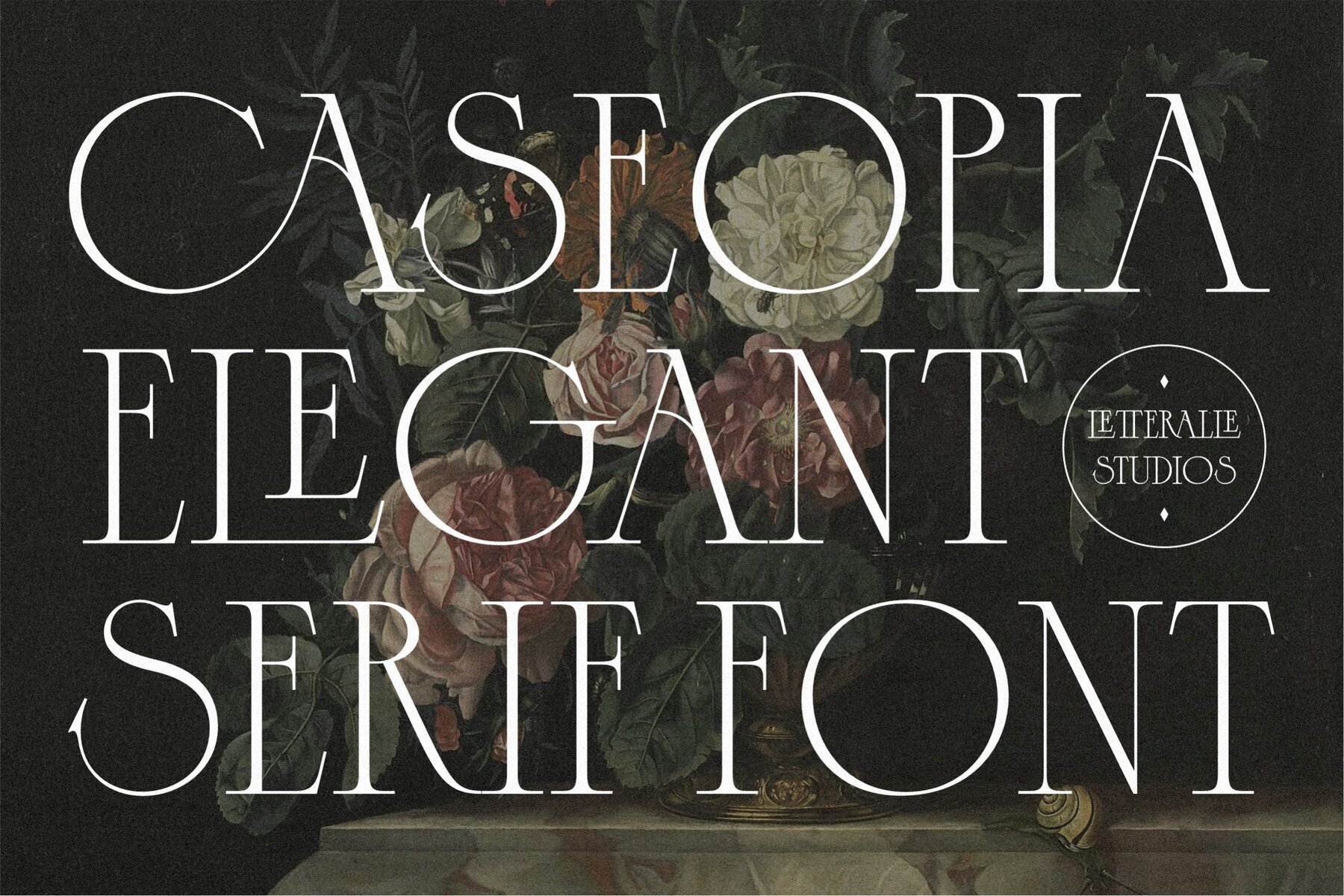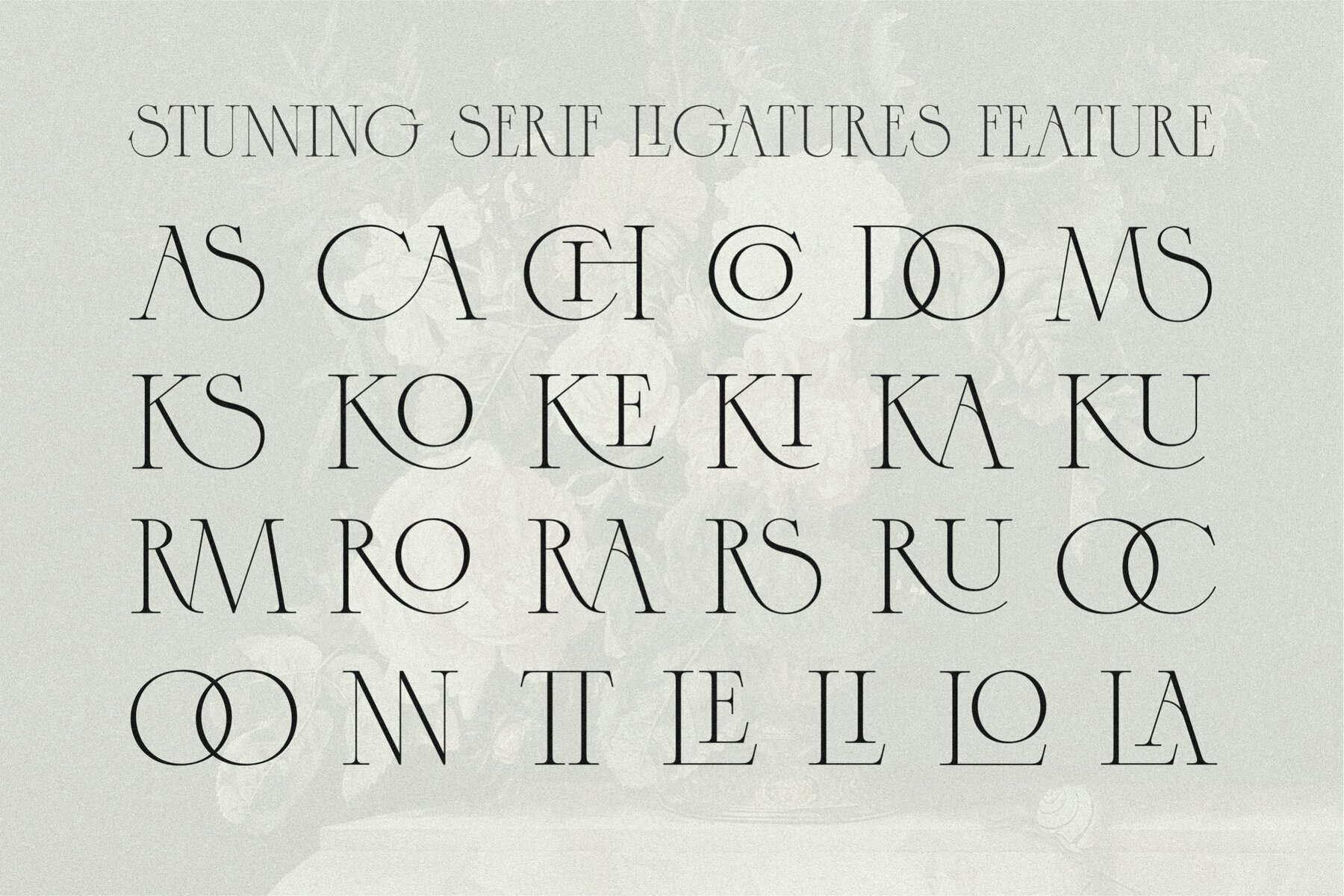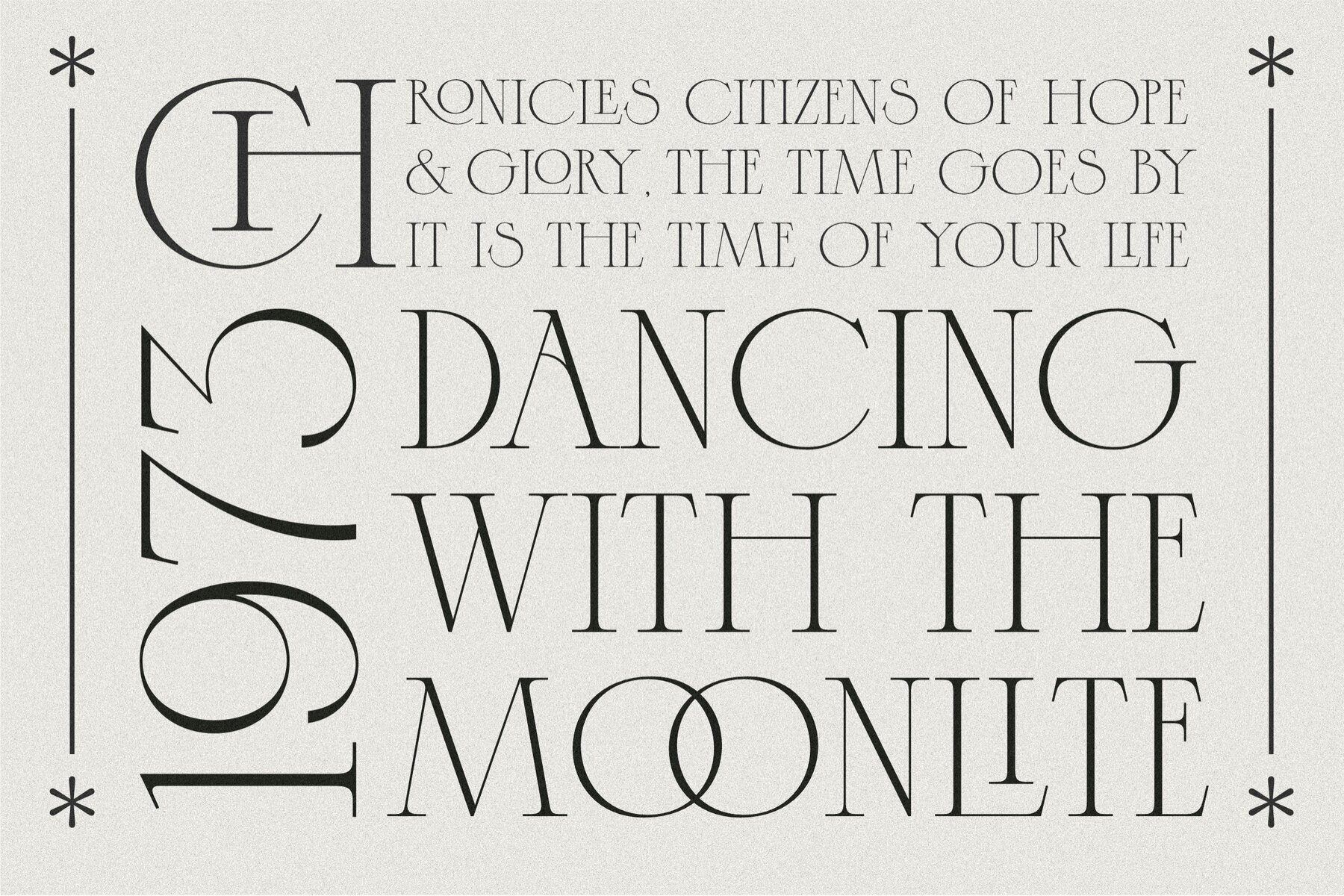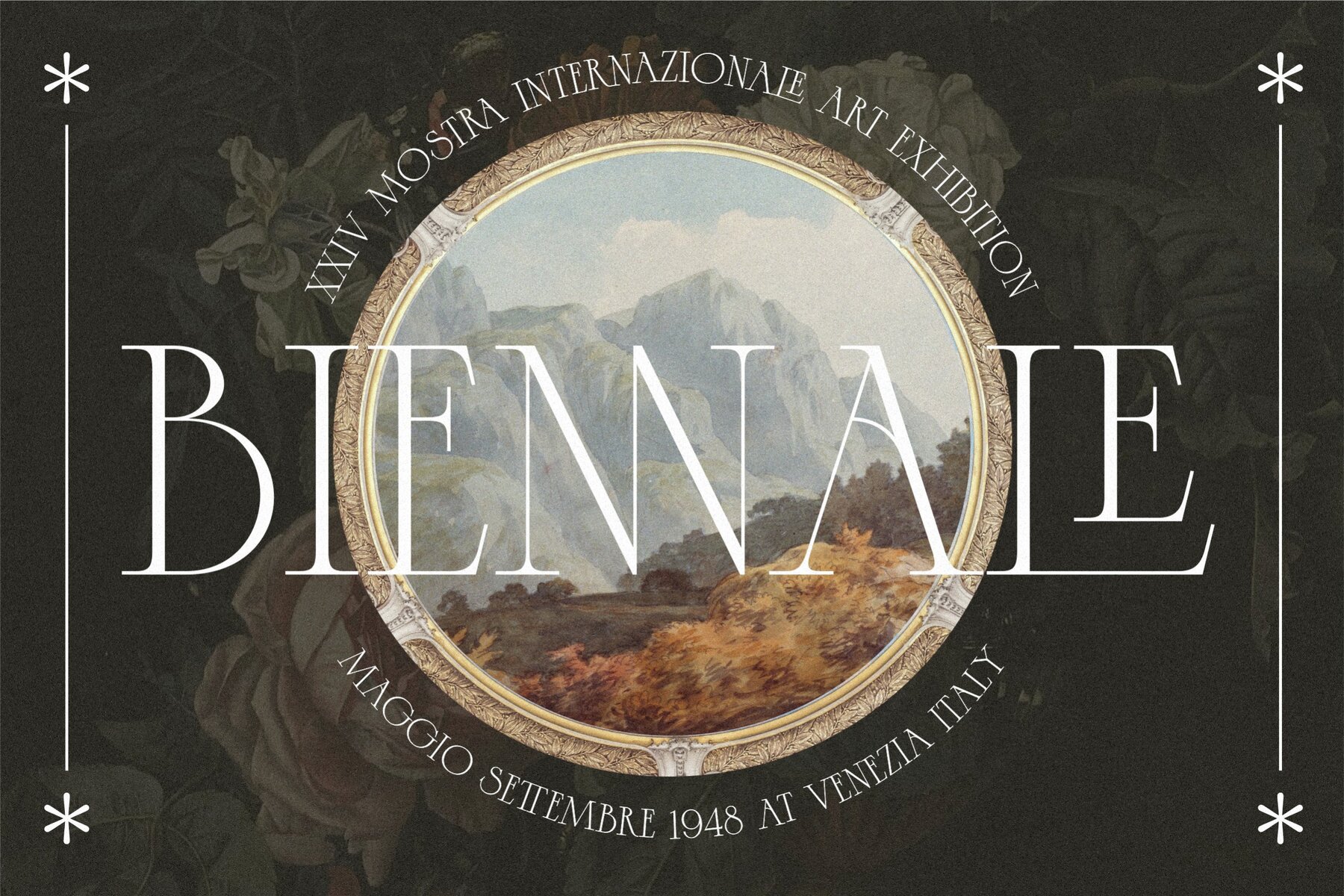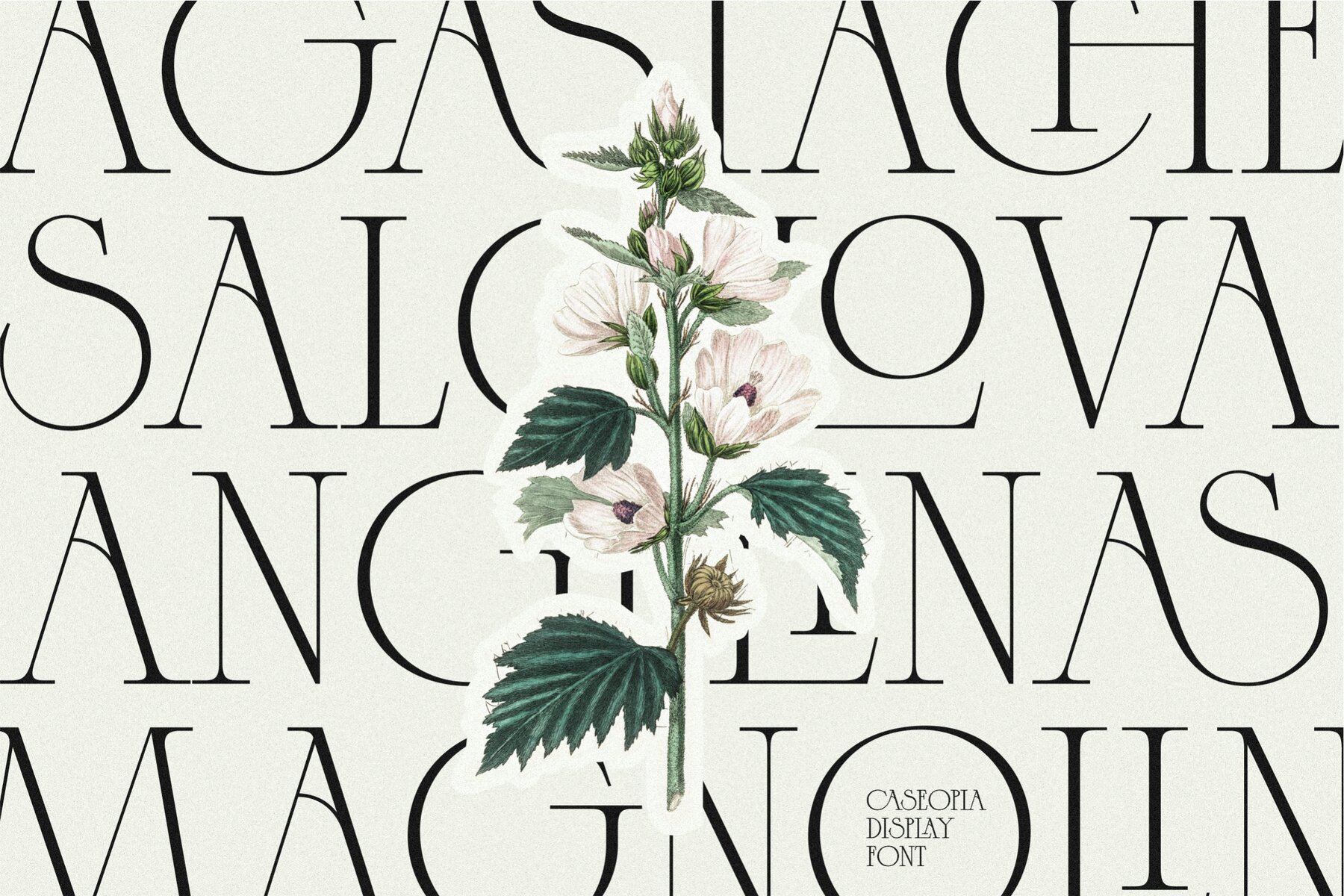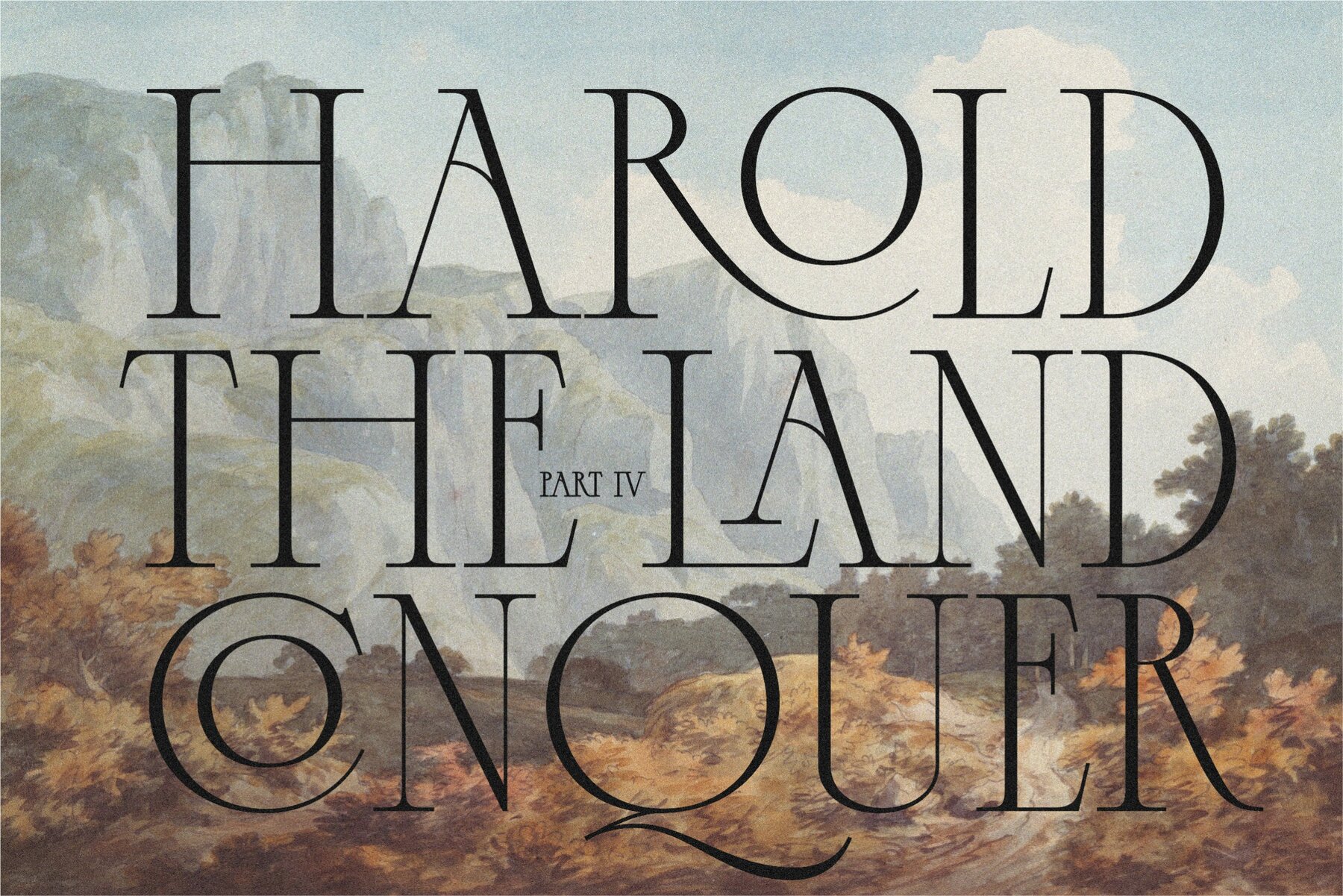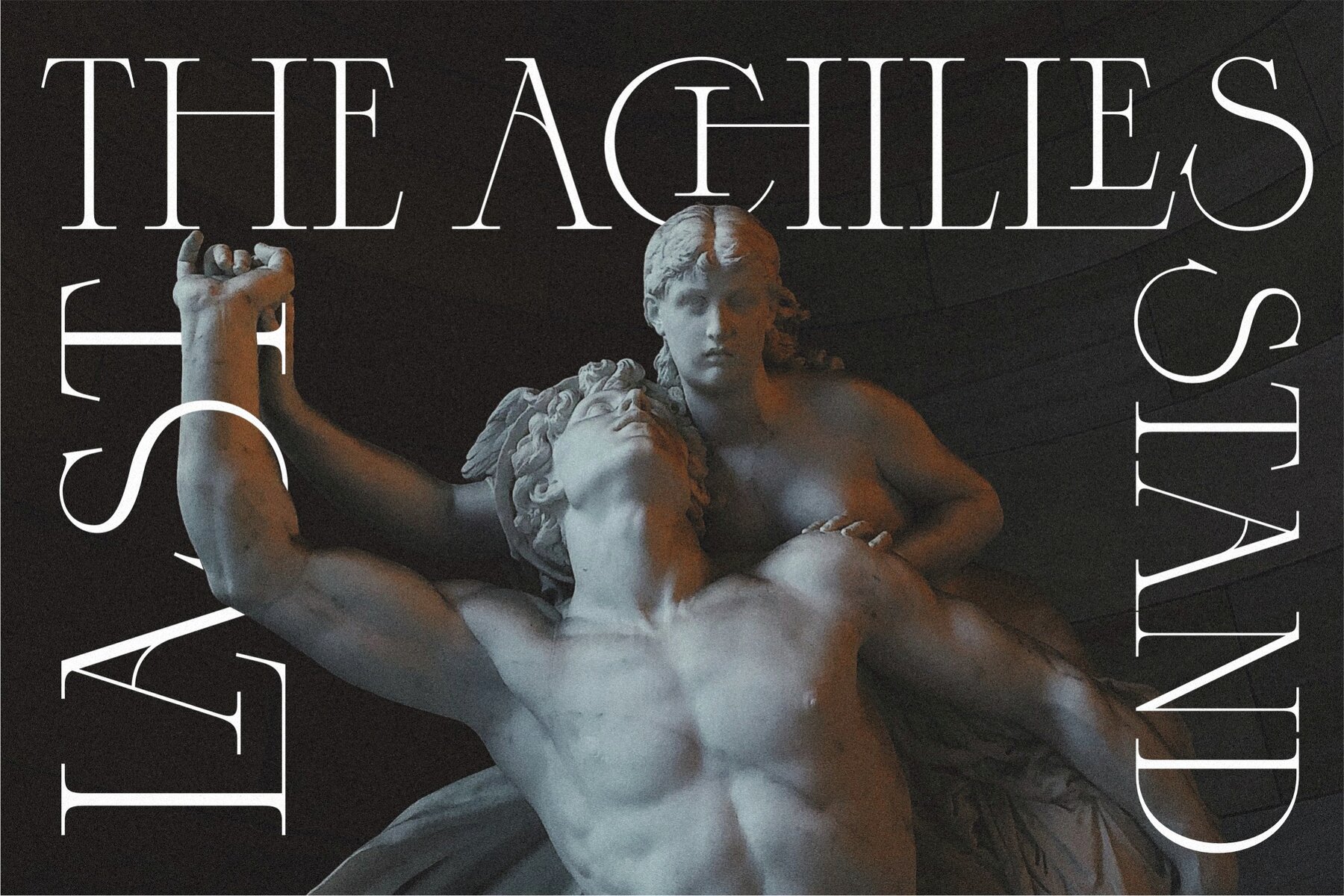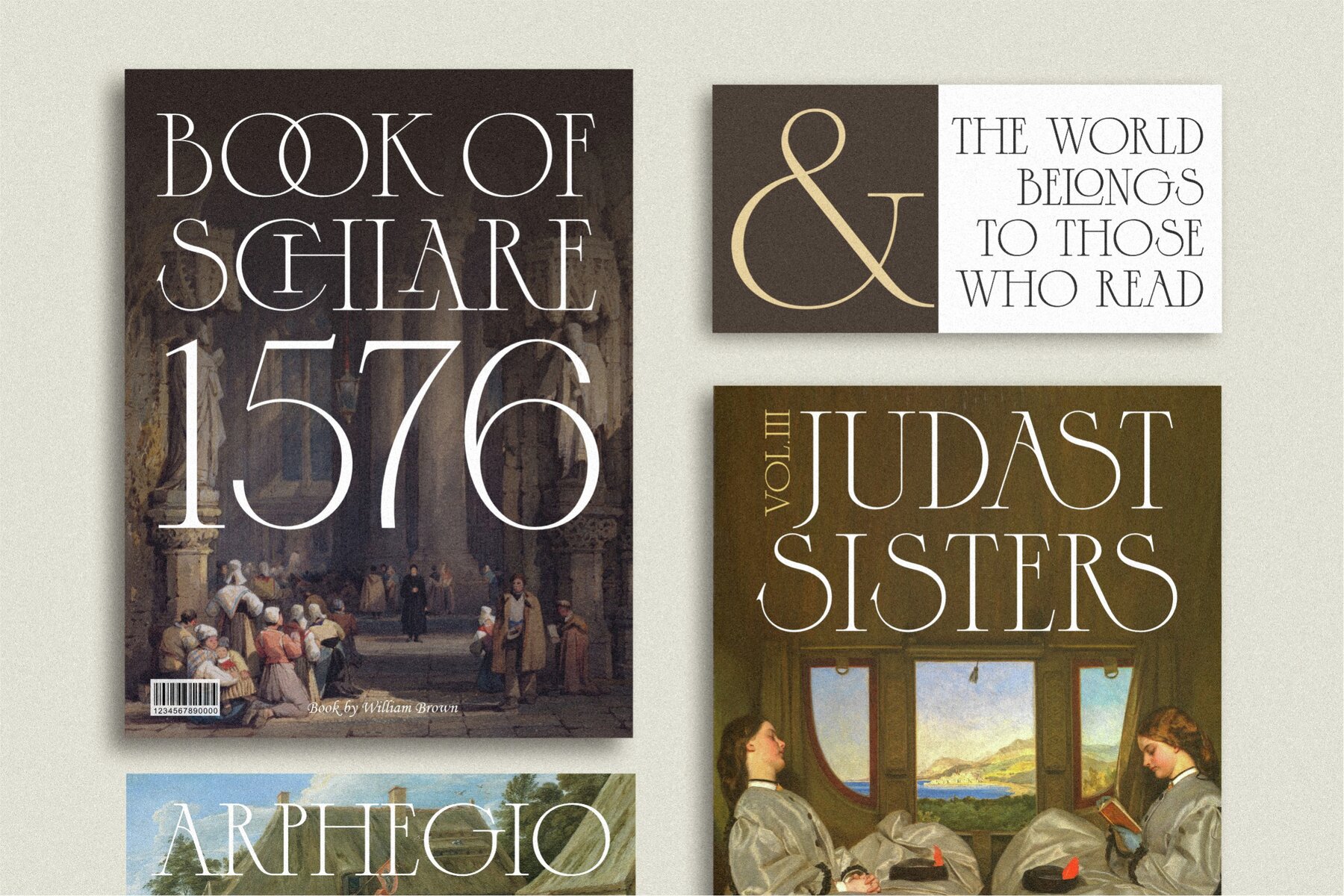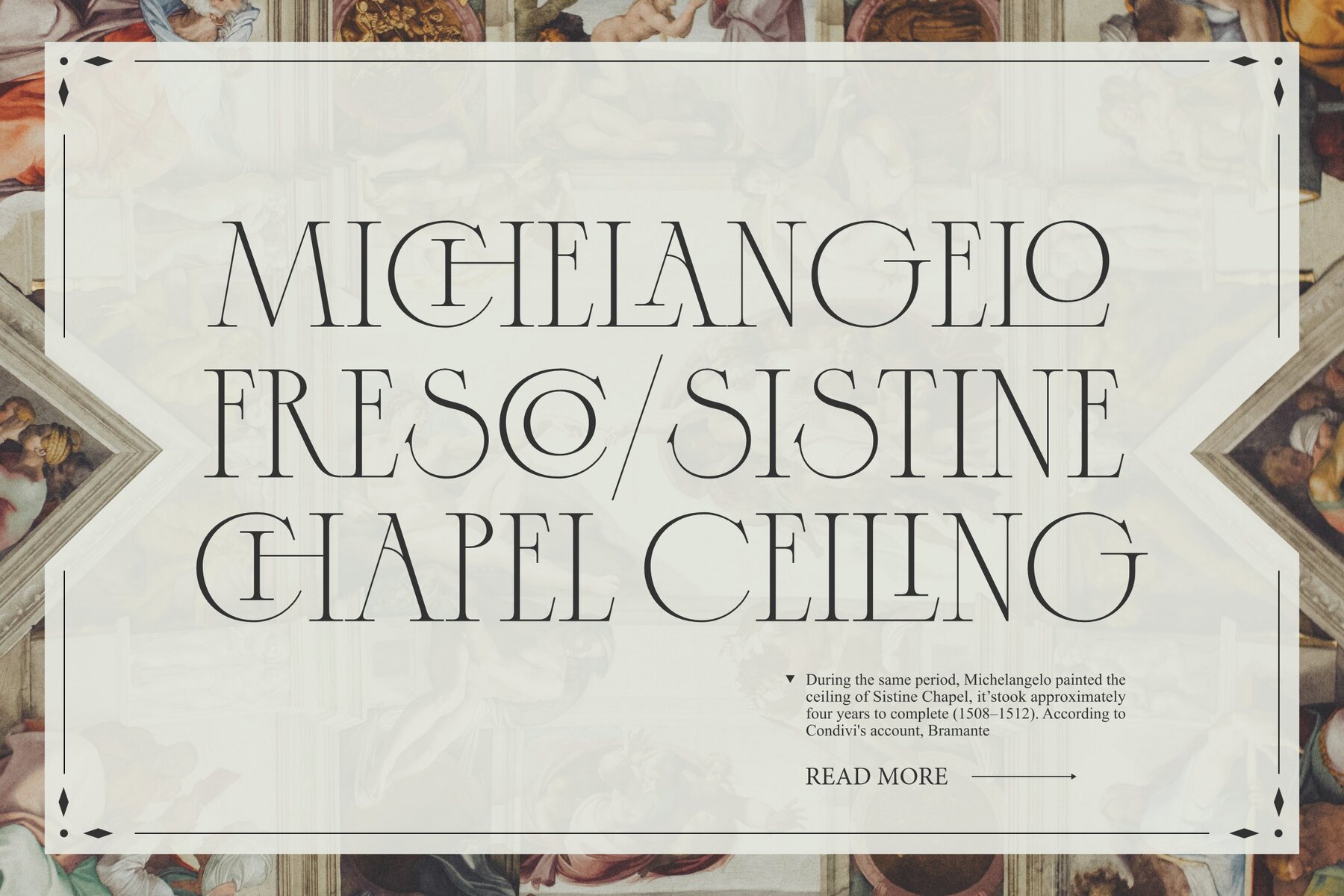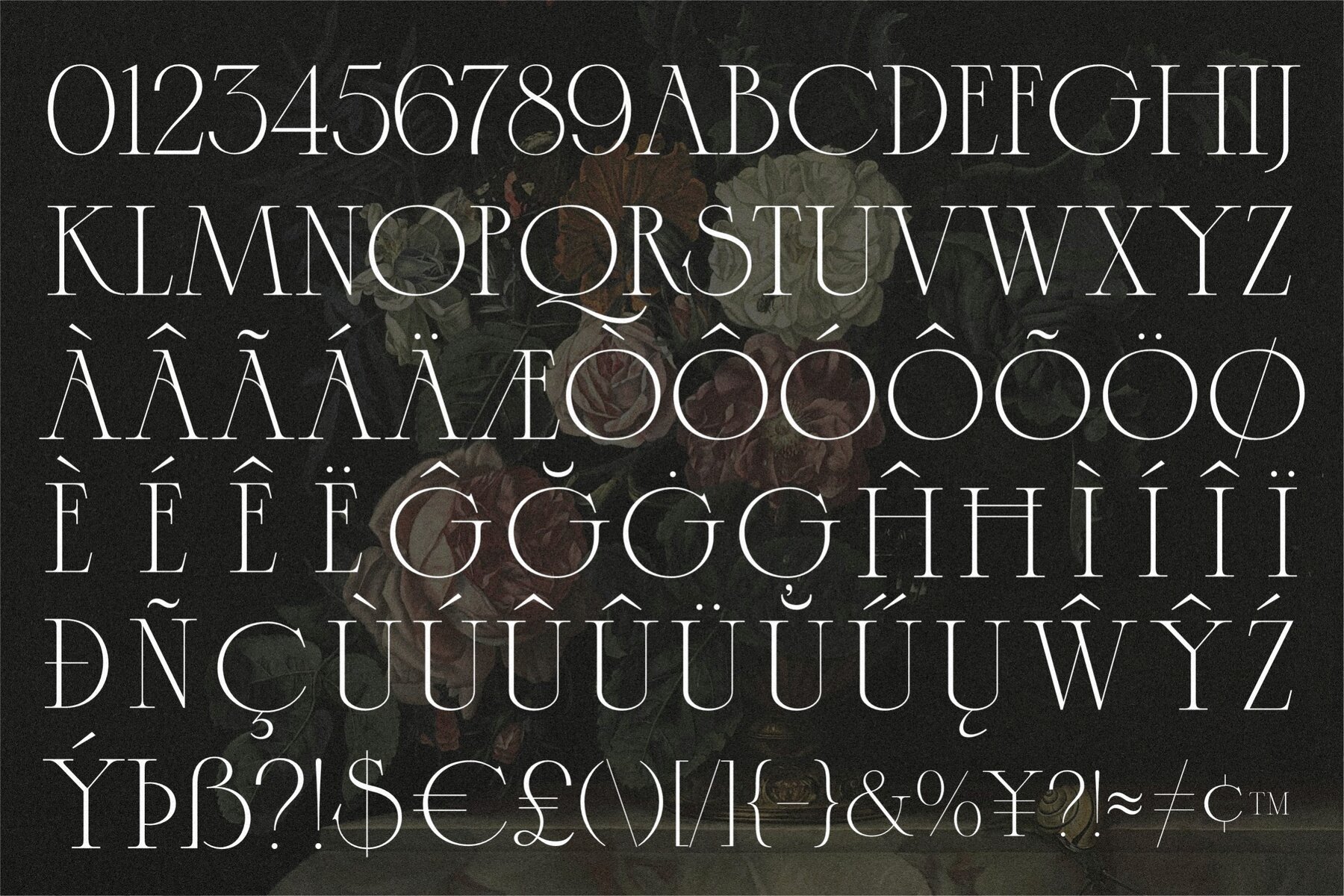
Caseopia Font
Caseopia Regular
Caseopia is a modern font that infuses a classic style with a touch of elegance and luxury. Featuring uppercase-only characters, numerals, and punctuation, this font is designed to stand out in editorial projects, logo design, wedding stationery, clothing branding, product packaging, and magazine headers. Additionally, the inclusion of ligatures adds a unique flair that enhances its aesthetic appeal.
Perfectly suited for a variety of design needs, Caseopia offers alternates and ligatures, as well as full numeral, punctuation, and multilingual accent support. Its refined and stylish design makes it an excellent choice for adding a sophisticated text overlay to any background image. Whether for professional branding or personal projects, Caseopia delivers a versatile and timeless typographic solution.